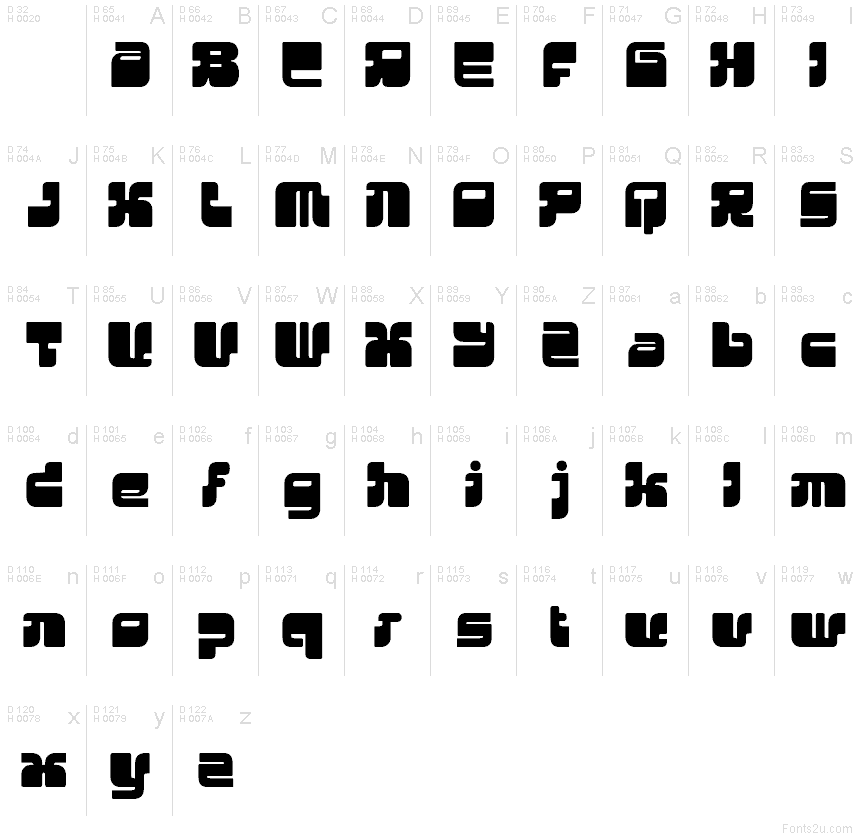
Burgein Regular Demo
Burgein font by Craft Supply Co. marries organic shapes with geometric influences for a modern aesthetic. This expanded bold font carries a retro vibe in its style, creating an effortless design balance. Its unique structure gives it distinctive character and mood. Download this free display typeface instantly for your favorite projects.
A casual style makes Burgein a great fit for t-shirts, packaging, signage, subtitles, stationery, headings, headers, branding material and various other professional or personal purposes.